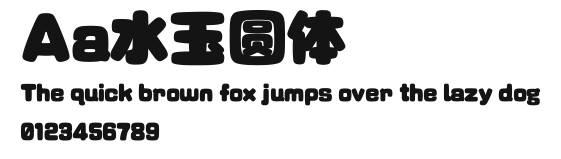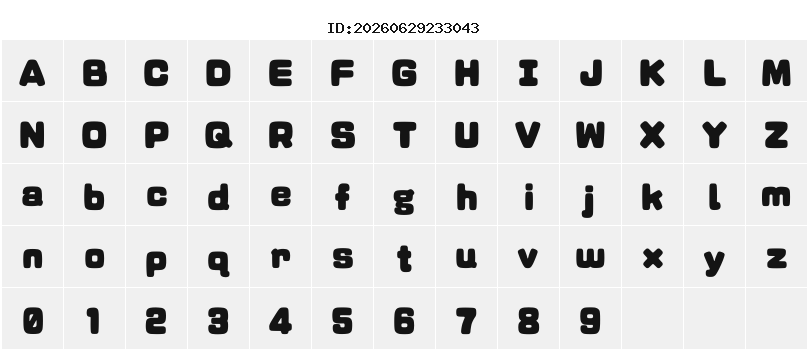
Aa水玉圆体 Preview
• Font Name: Aa水玉圆体
• Font Style: 常规
• Font ID: 1.000;Aa;AaSYYT;2021
• Full Font Name: Aa水玉圆体
• PostScript Name: AaSYYT
• Character Count: 8010
• Designer: Aa
• Manufacturer: HanMeiHutong (XiaMen) Technology Co.Ltd.
• Description: AaSYYT is a fantastic font with excellent features designed for user interfaces and electronic communications.
About Aa水玉圆体.ttf
Aa水玉圆体.ttf is a modern, elegant sans-serif font designed for ultimate readability and visual harmony. Perfect for branding, headlines, web design, and print materials.